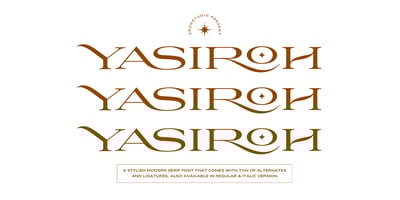
Yasiroh Font Family was designed by Muhamad Yusron Billah and published by Sronstudio. Yasiroh contains 2 styles and family package options. Introducing “Yasiroh,” a modern ligature serif font that exudes elegance and sophistication. With its beautifully crafted ligatures and refined serifs, “Yasiroh” brings a touch of luxury and contemporary flair to any design project. Perfect for logos, invitations, branding, and editorial design, this font offers a harmonious blend of modern aesthetics and classic charm. Elevate your creations with the stylish and graceful appeal of “Yasiroh.”Included:- Regular & Italic Style- Ligatures- Alternates- Numeral & Punctuation- PUA Encoded- Multilingual support- Simple Installation- Work both on Mac and WindowsThank you very much 🙂